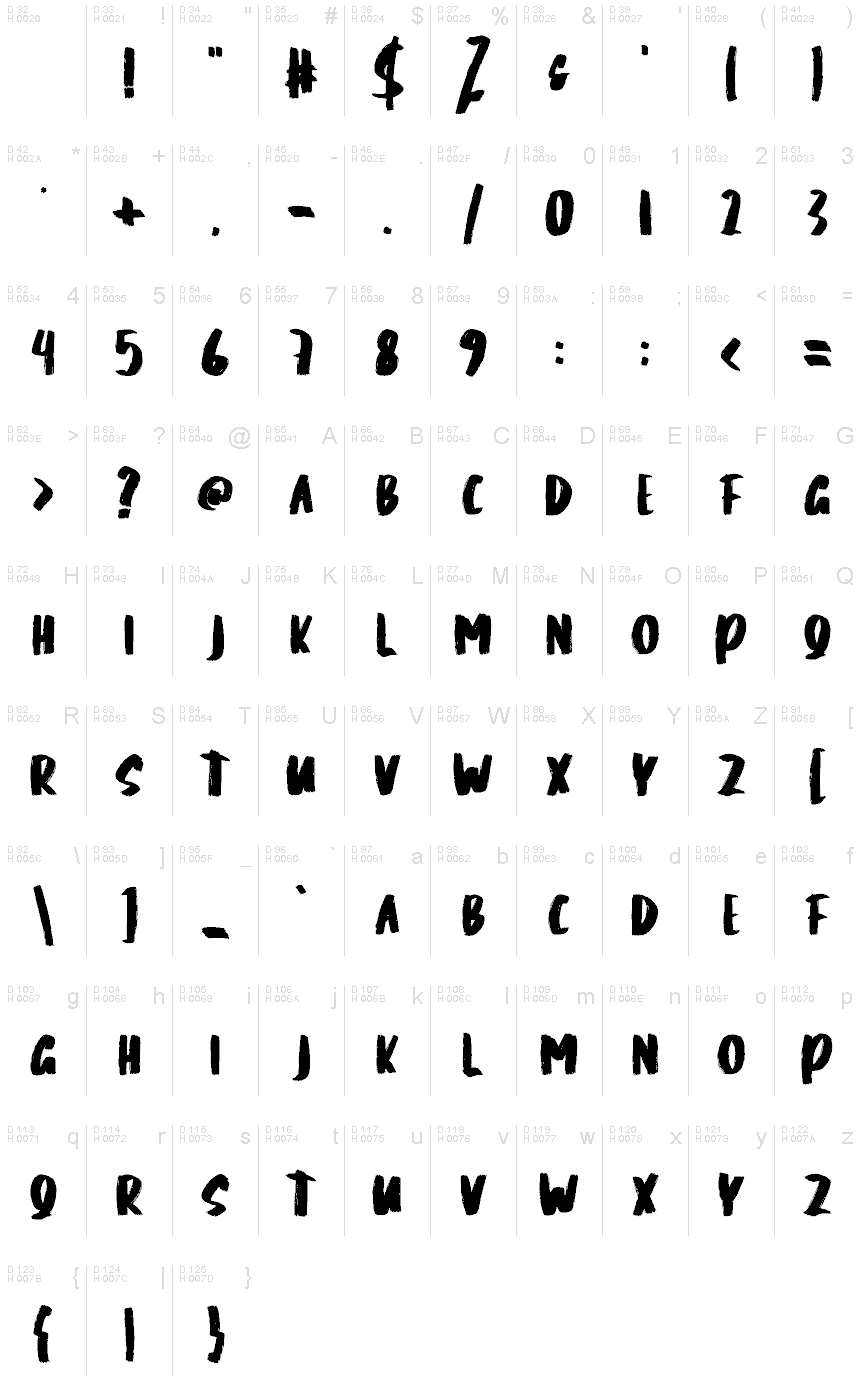
Uspore
Uspore font from Skiiller Studio captures an edgy urban style inspired by graffiti and street art. Its brush-like appearance and raw texture create an artistic, expressive aesthetic that is bold, energetic, and captivating. Geometric elements further enhance a unique character suitable for modern projects. This textured free brush font evokes a sense of authenticity ideal for innovative branding work.
Possibilities open to logo designs first with Uspore as well as product packaging. Designers may find this font attractive in posters, social media posts, banners, labels, headlines on books or magazines, or any project that requires bold typography elements.